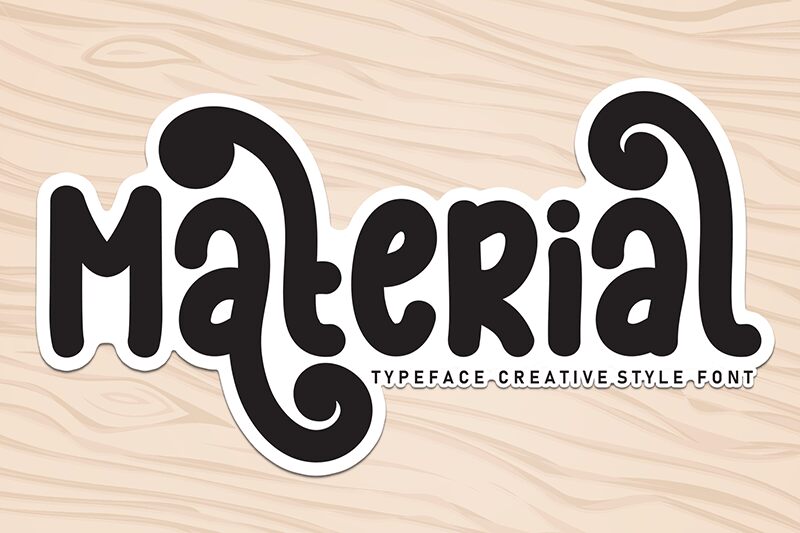
Material
Material font by Scratchones is a free handwritten font with letters that feature rounded corners. Each character uniquely captures the look of brushstrokes, spreading throughout the text a welcoming environment. Moreover, this condensed allcaps font combines retro styles with modern calligraphy along with bold condensed shapes for an eye-catching presence at first glance.
Designed for natural typography that connects readers to your services and items, it can be used online or in print. So use Material in digital or printed ads, apparel designs including t-shirts and tote bags, signage projects, menus or food packaging surface design. Posters designing and quotes are some other examples it can serve beautifully.